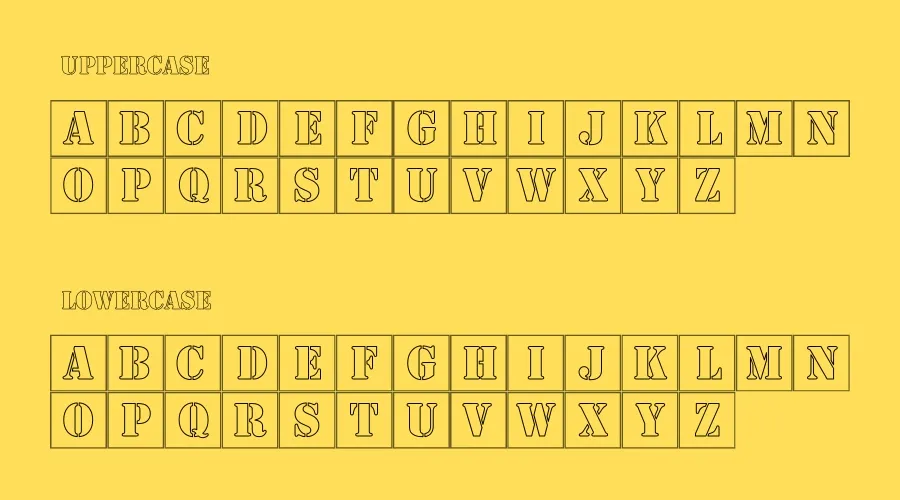
About Army Hollow Font
Army Hollow Font is a modern-day fancy text style that could be an incredible choice to extend the noticeable quality of your venture. Although the typography is conventional, the essential components are extraordinary.
It is the idealized text style for all your fun designs. The typeface is a new and unique style with a carefully assembled fashion, enhancing characters, and a moving standard so its a lovely style for creating unique material to attract the viewer.